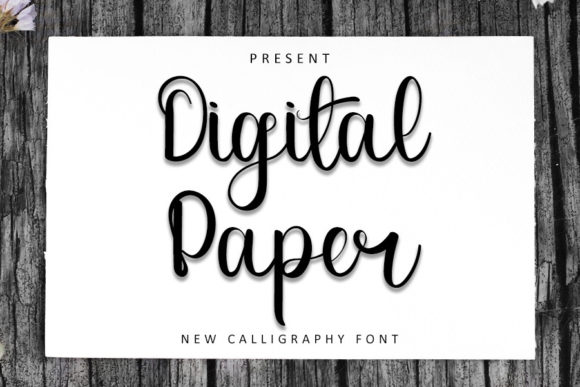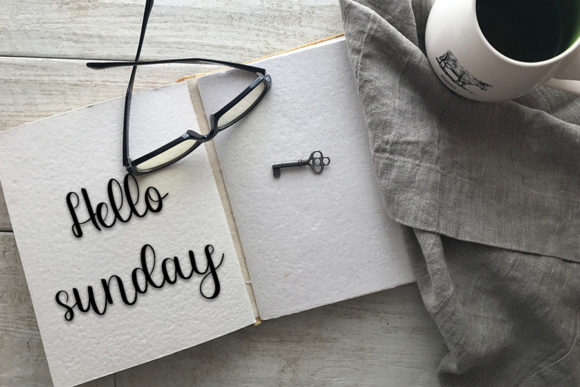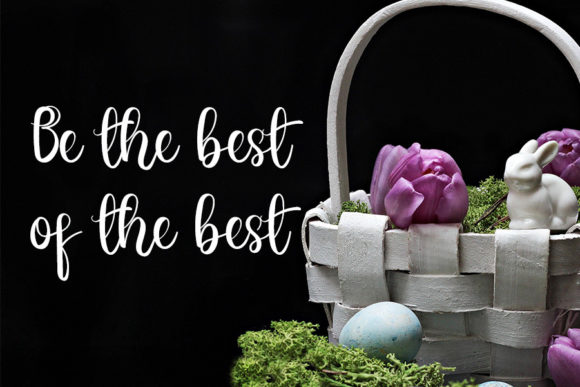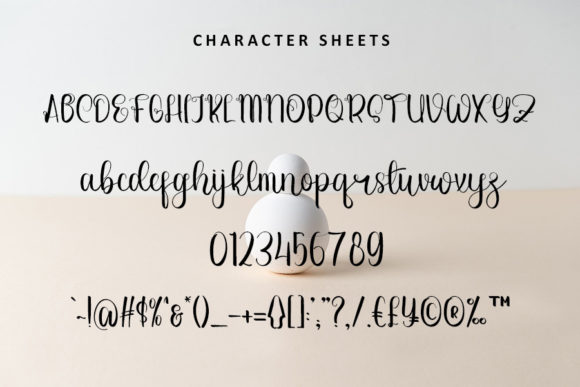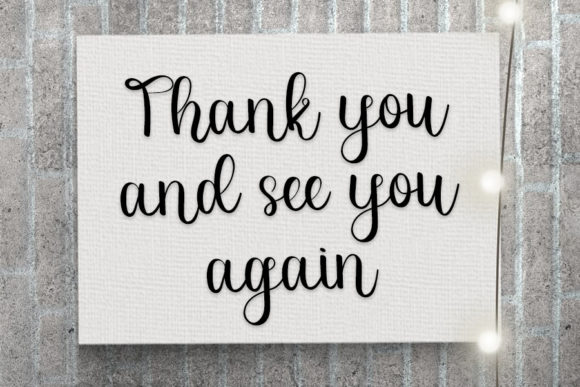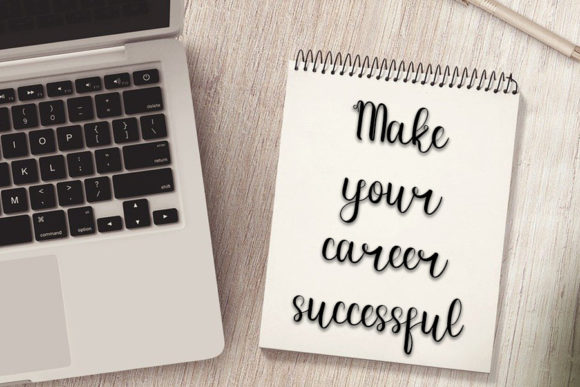
Digital Paper Font
About Digital Paper Font
Digital Paper is a playful and smart handwritten font with an impeccable form, inspired by a timeless calligraphy. Balanced and varied, this font was designed to enhance the beauty of your projects.